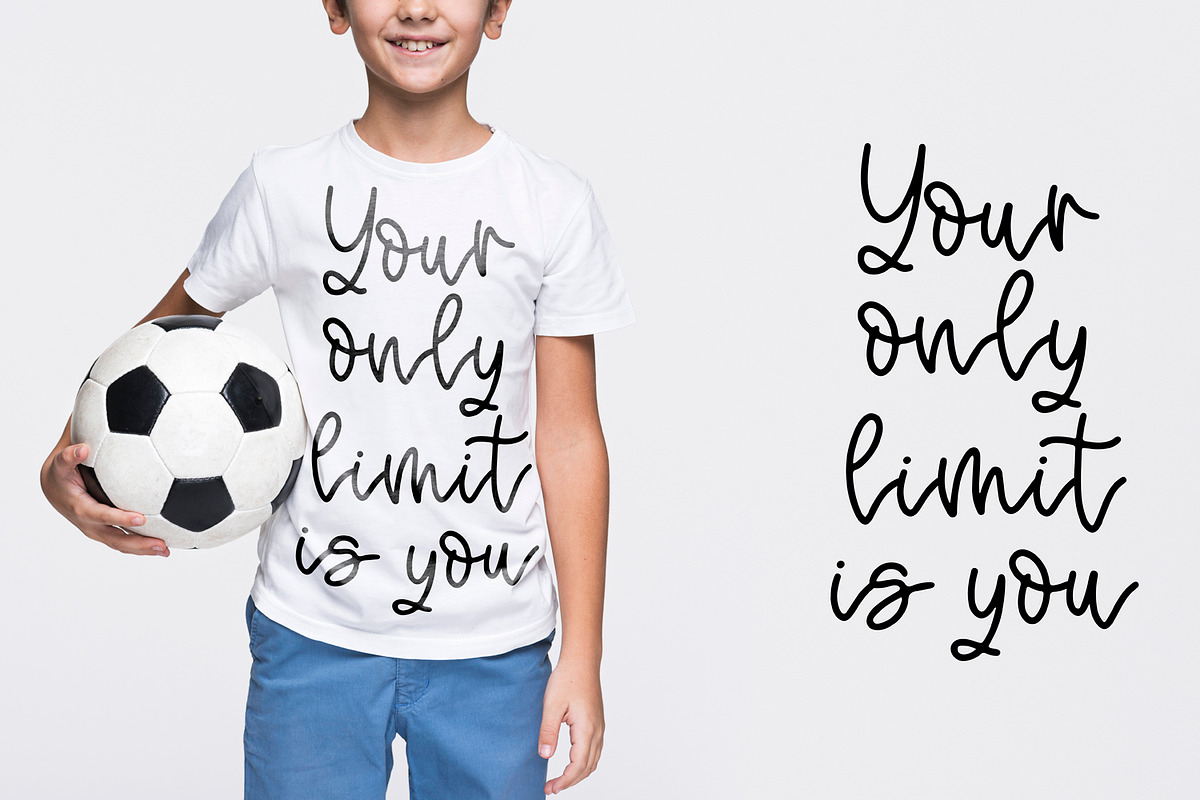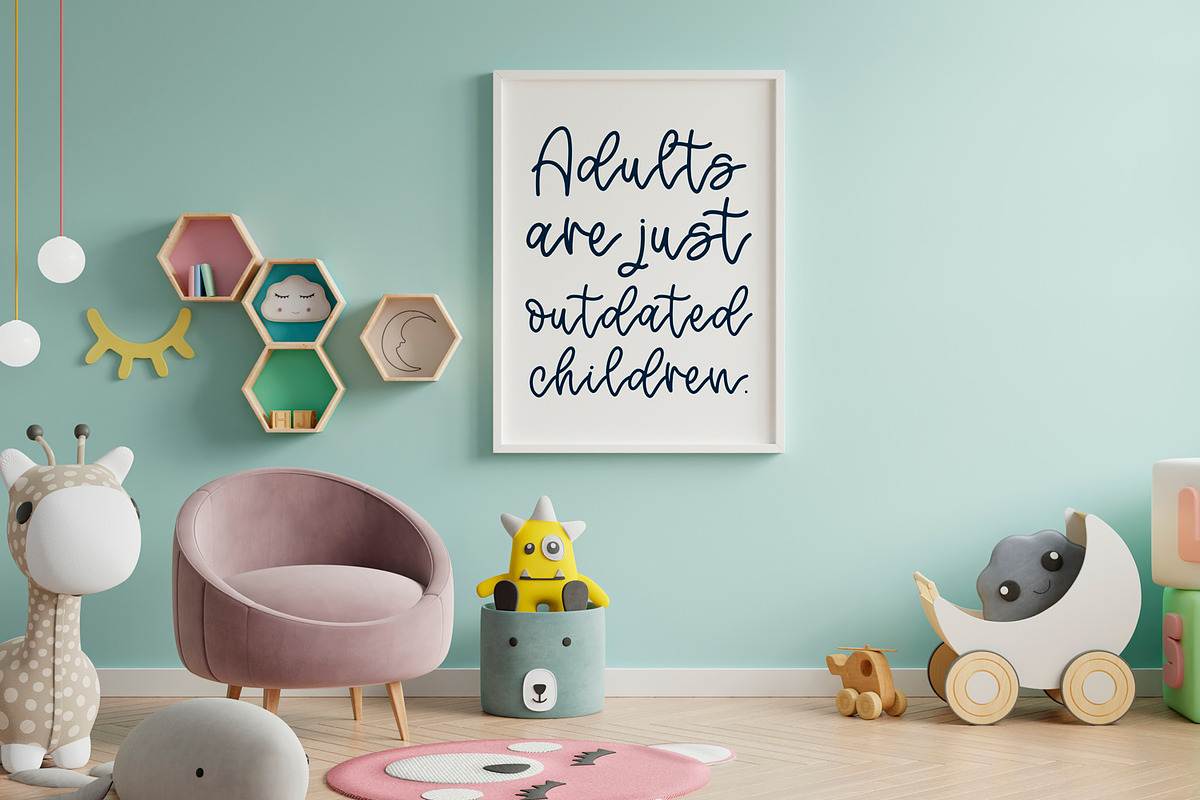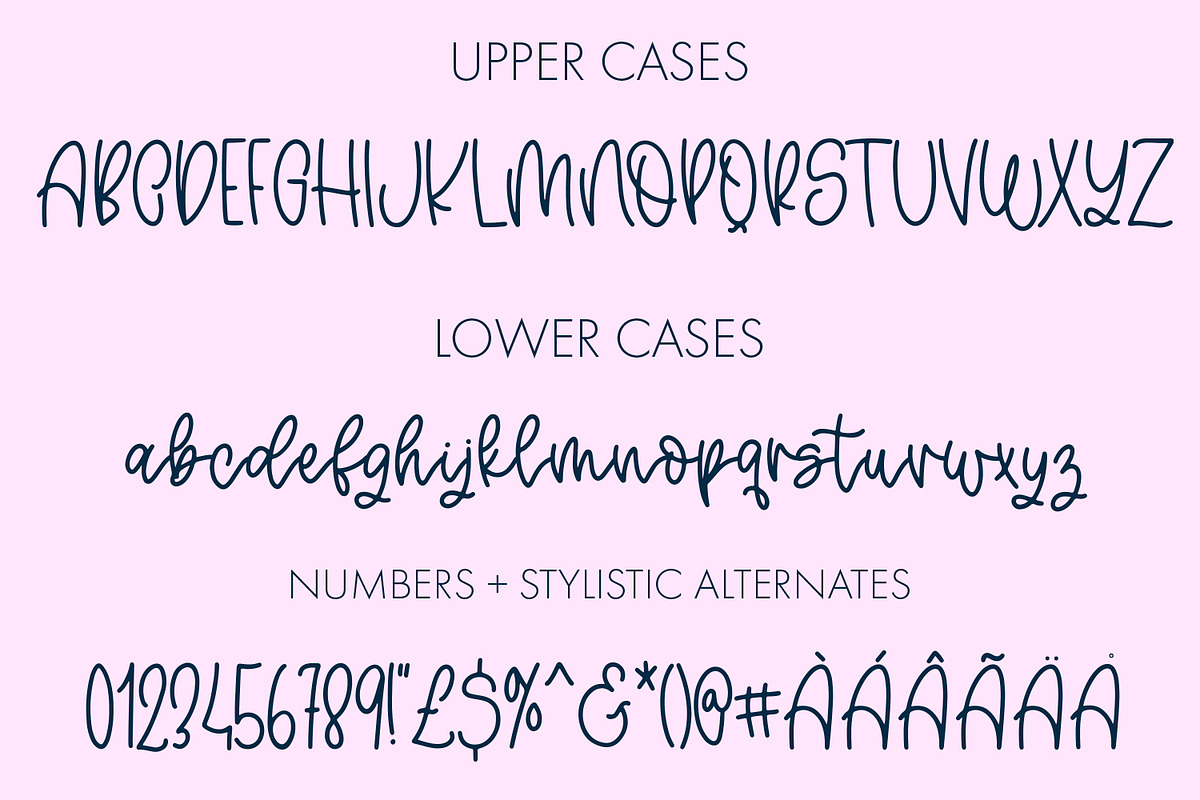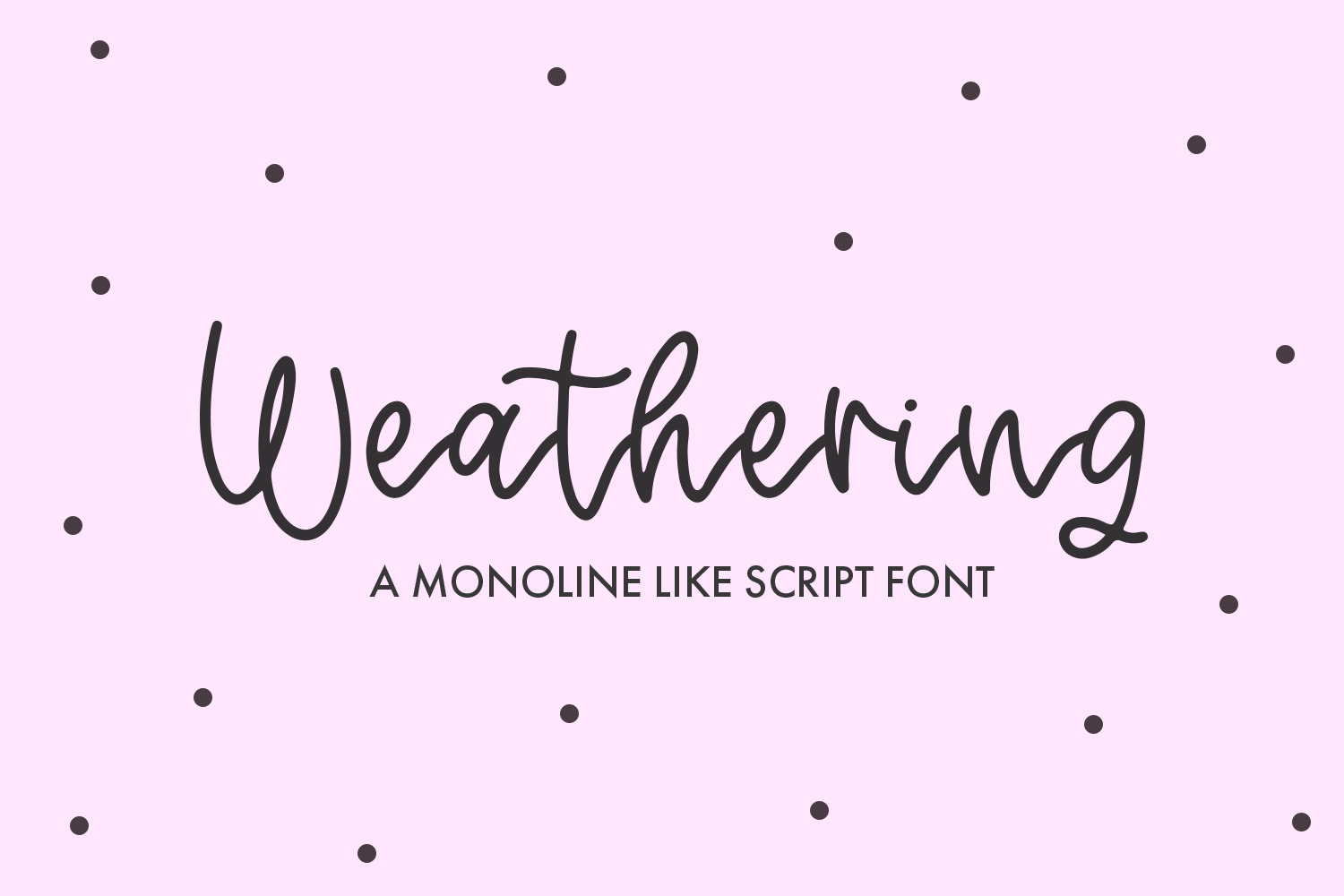
Weathering Script Font
Introducing 'Weathering' – The Monoline Script Font for Timeless Elegance! Embrace the art of simple sophistication with our 'Weathering' font. Its graceful monoline style adds a touch of timeless charm to your projects. Perfect for invitations, branding, and more. Let 'Weathering' be your go-to choice for a classic, refined look. Elevate your design today!